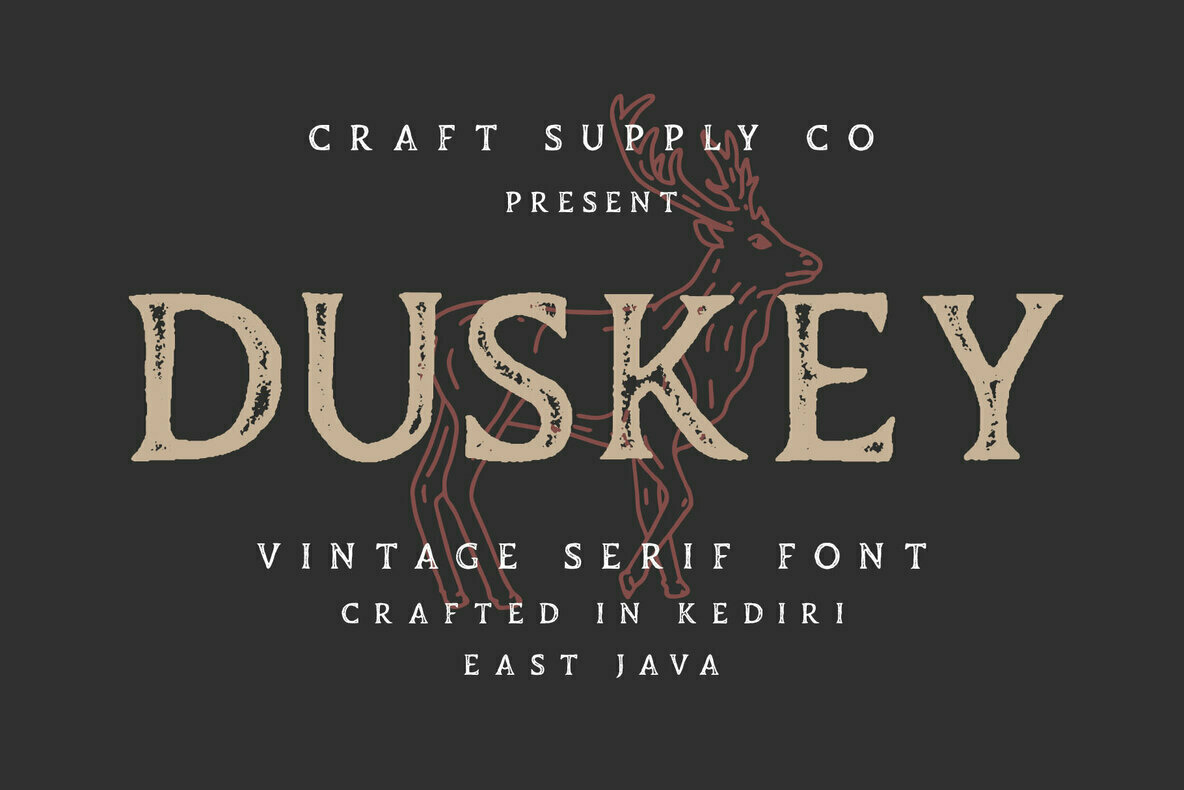
Duskey Font
Duskey Font is perfect for atmospheric branding, moody designs, evening events, sophisticated logos, twilight campaigns, ambient packaging, artistic posters, mysterious advertising, boutique signage, and evocative visual communications. This distinctive typeface excels in both digital and print applications requiring atmospheric character.
Duskey Font is exciting because it captures the mysterious beauty of twilight hours with distinctive letterforms that create atmospheric visual appeal while maintaining excellent readability. Its moody character generates memorable brand experiences that resonate with audiences seeking sophistication, mystery, and emotional depth.
Duskey Font embodies the captivating essence of twilight aesthetics, delivering exceptional typography that reflects the sophisticated mood and emotional depth associated with evening atmospheres and mysterious environments. This evocative typeface draws inspiration from dusky lighting and ambient settings to create letterforms that communicate intrigue, sophistication, and emotional resonance. The font's atmospheric character makes it particularly valuable for evening entertainment venues, ambient music labels, boutique hotels, and luxury brands that require typography capable of conveying mood, mystery, and sophisticated ambiance.
The atmospheric construction of Duskey Font demonstrates careful attention to mood-setting design principles, with distinctive proportions and subtle details that create compelling visual compositions reminiscent of twilight sophistication and mysterious elegance. This thoughtful approach ensures excellent performance across diverse applications, from intimate venue branding to large-scale campaigns where atmospheric appeal enhances brand storytelling. The font's evocative qualities make it especially effective for brands in entertainment, hospitality, fashion, and cultural arts that celebrate mood and atmospheric experience.
Whether developing atmospheric brand identities, creating moody communications, or designing evening marketing materials, Duskey Font provides the evocative character needed for communications that inspire emotion and create memorable experiences while maintaining professional standards and achieving distinctive market presence across all atmospheric applications.